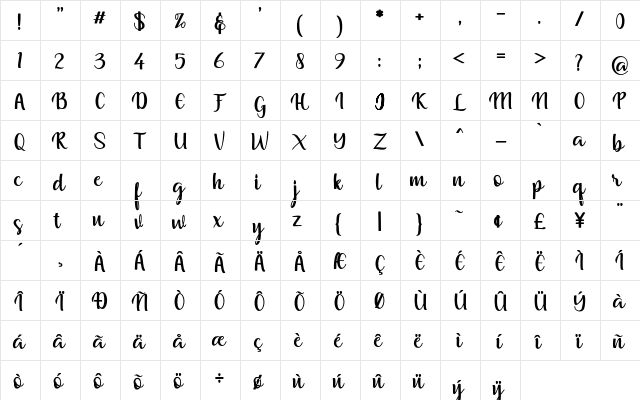
muliana Regular
Design Context for muliana Typeface
muliana is a composed and adaptable typeface that performs quietly and consistently across a wide range of design contexts.